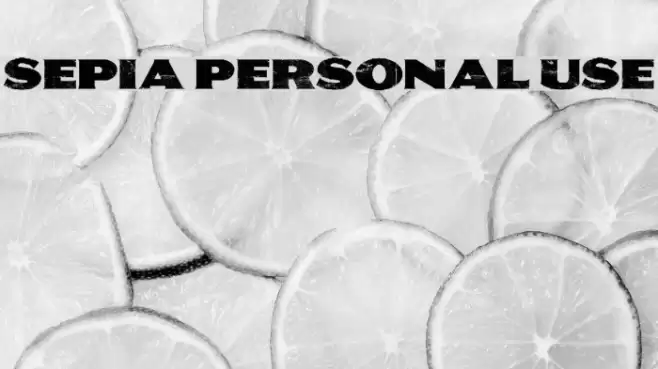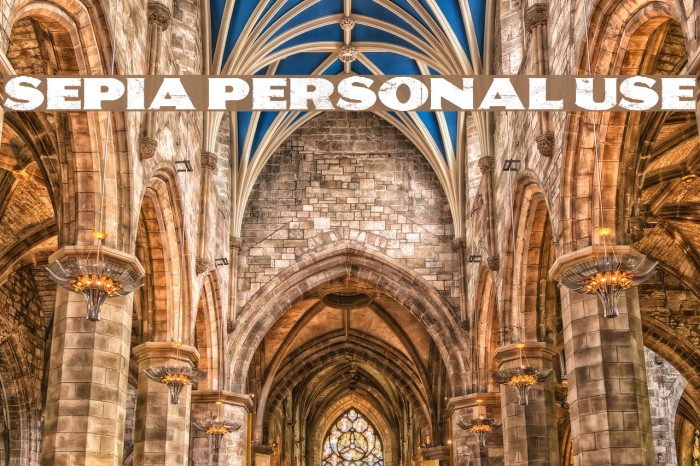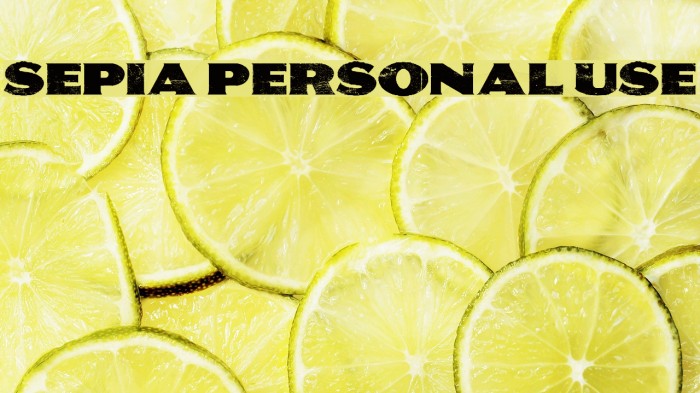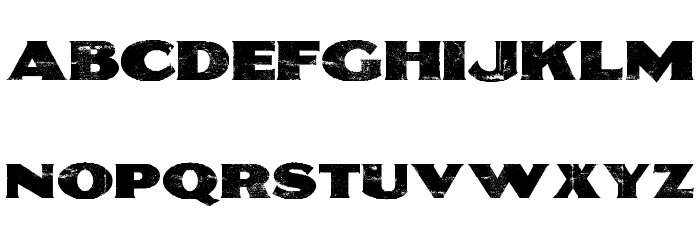
SEPIA Personal Use Font
SEPIA Personal Use Description
This font features a bold and distressed style, characterized by its rough, textured appearance. The uppercase letters are prominent and impactful, making it ideal for attention-grabbing designs. The font's rugged texture gives it a vintage and gritty feel, suitable for projects that require a strong, bold statement. The characters are evenly spaced, ensuring readability despite the distressed effect. This font is particularly effective in creating a sense of nostalgia or a worn, industrial look.
A bold, distressed font with a vintage, gritty texture from Distorted Eroded fonts.
- Proposed Projects: Ideal for posters, album covers, branding for vintage or industrial-themed products, and any design needing a bold, textured look.
- Overall Style: Vintage